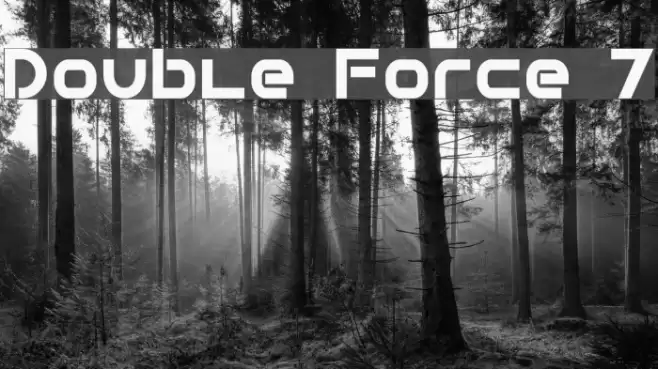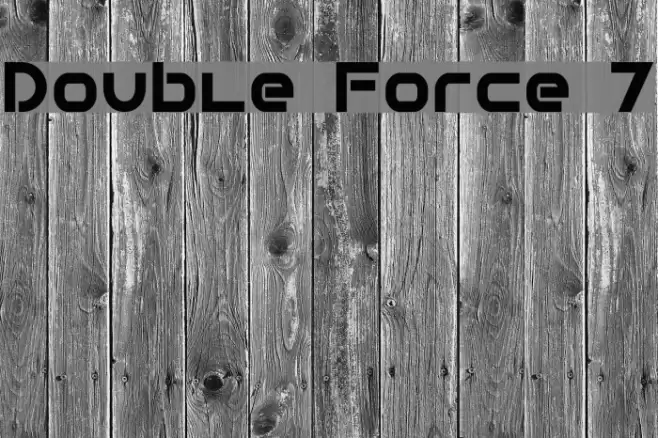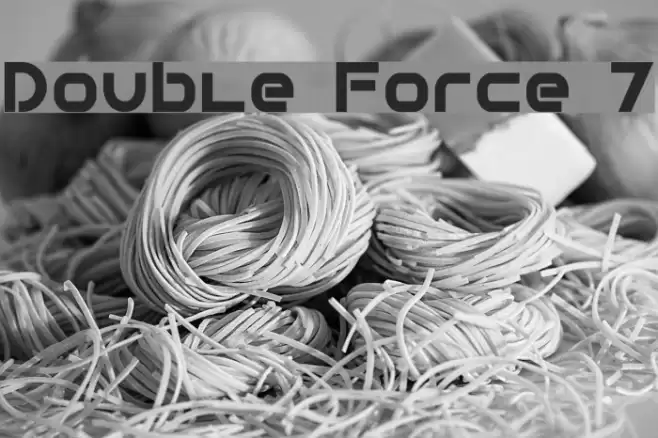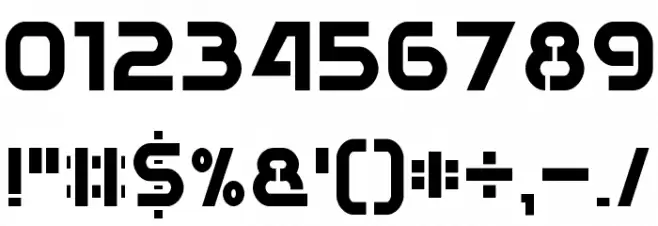
Double Force 7 Font
Double Force 7 Description
This font features a bold, geometric design with a futuristic aesthetic. The characters are constructed with strong, angular lines and a consistent stroke width, giving it a robust and modern appearance. The uppercase letters are particularly striking, with unique cuts and angles that add a dynamic feel. The lowercase letters maintain the same geometric style, ensuring uniformity across the typeface. Numbers and special characters are designed to match the boldness and angularity of the alphabet, making them stand out. This font is ideal for projects that require a modern, tech-inspired look.
A bold, geometric font with a futuristic and modern design from Uncategorized fonts.